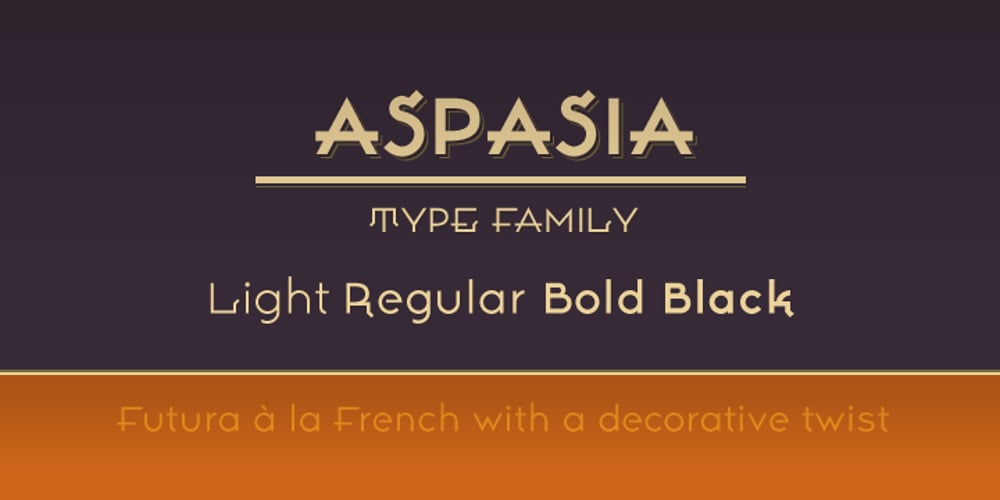
Aspasia
Aspasia font
Aspasia Font Family was designed by Mikus Vanags and published by Mikus Vanags. Aspasia contains 4 styles and family package options. The Aspasia is a decorative low contrast sans serif type family suited both for editorial and corporate design, available in five weights, ranging from Thin to Black. It was designed by Mikus Vanags in 2009 influenced by art-deco geometric typefaces and mastered for the needs of today. The Aspasia OpenType fonts have and extended character set to support Central/Eastern European languages like Polish, Czech and Latvian. The font includes old style and lining figures, regular and discretionary ligatures and multiple stylistic alternates.